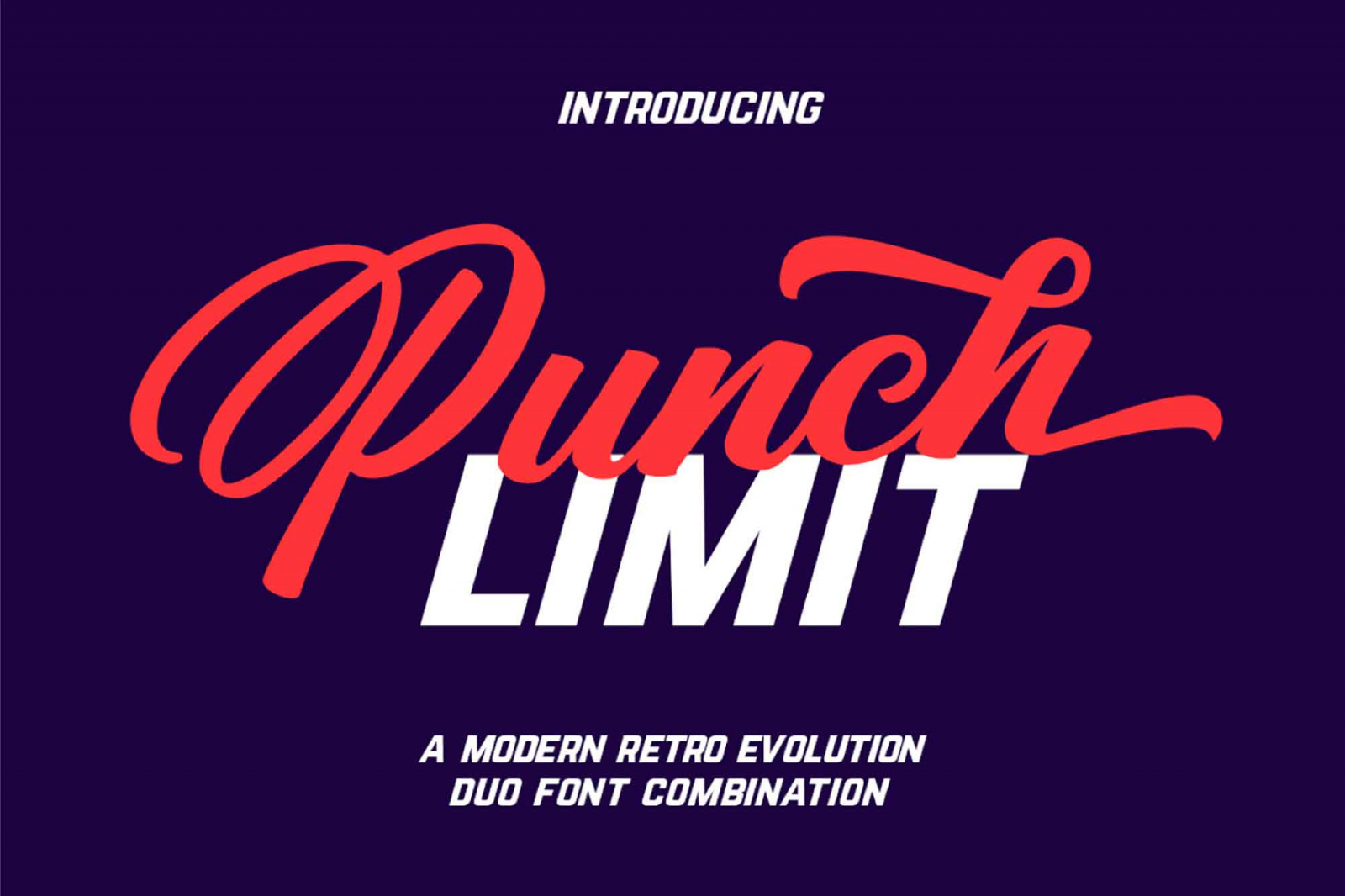
Punch Limit Font is a fun, hand-painted script font brought to you by Maulana Semar. Its set of iconic characters features striking capital letters and natural flowing lowercase letters that mimic real handwriting, giving a natural feel to your branding designs and stationery projects.
However, this is only the beginning as the premium version brings together the gorgeous script font and elegant oblique sans serif font that complement each other, presenting a modern retro look for magazines and editorial designs, promotions, websites, and projects related to sports, games, etc. The premium version of Punch Limit also offers the full features of the script font including its 15 sets of capital letter alternates.